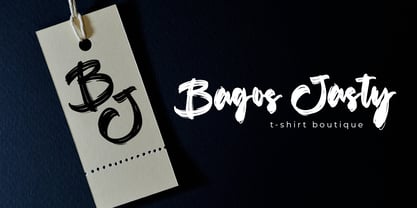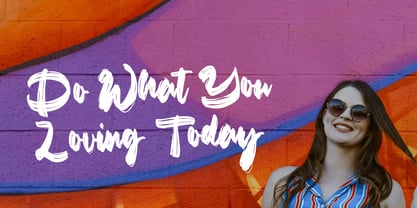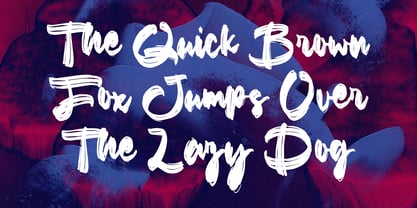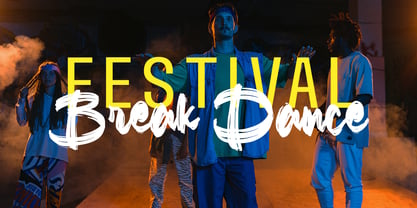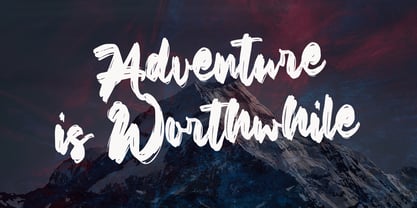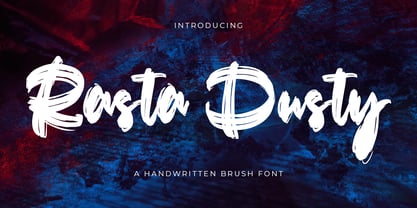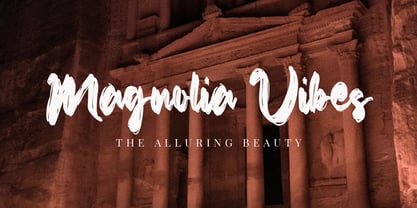
Rasta Dusty
by Mega Type
The Rasta Dusty Font Family was designed by M Akmal and published by Mega Type. Rasta Dusty contains 1 styles.
Rasta Dusty is a bold and expressive handwritten brush font that radiates energy and raw creativity. Its strokes are thick, textured, and organic—mimicking the look of real paintbrush marks with an urban, gritty edge. The playful irregularity in each letterform gives it a personal and spontaneous feel, making it perfect for creating a strong visual impact. Whether used in all caps or mixed case, Rasta Dusty retains its dynamic character and high readability.
This font is highly suitable for projects that require a sense of authenticity, movement, or artistic flair. Ideal applications include music posters, streetwear branding, album covers, YouTube thumbnails, event flyers, or any design that calls for a loud and bold statement.
Rasta Dusty effortlessly combines attitude with creativity, making it a go-to choice for designers aiming to capture attention with a handcrafted, rebellious vibe.